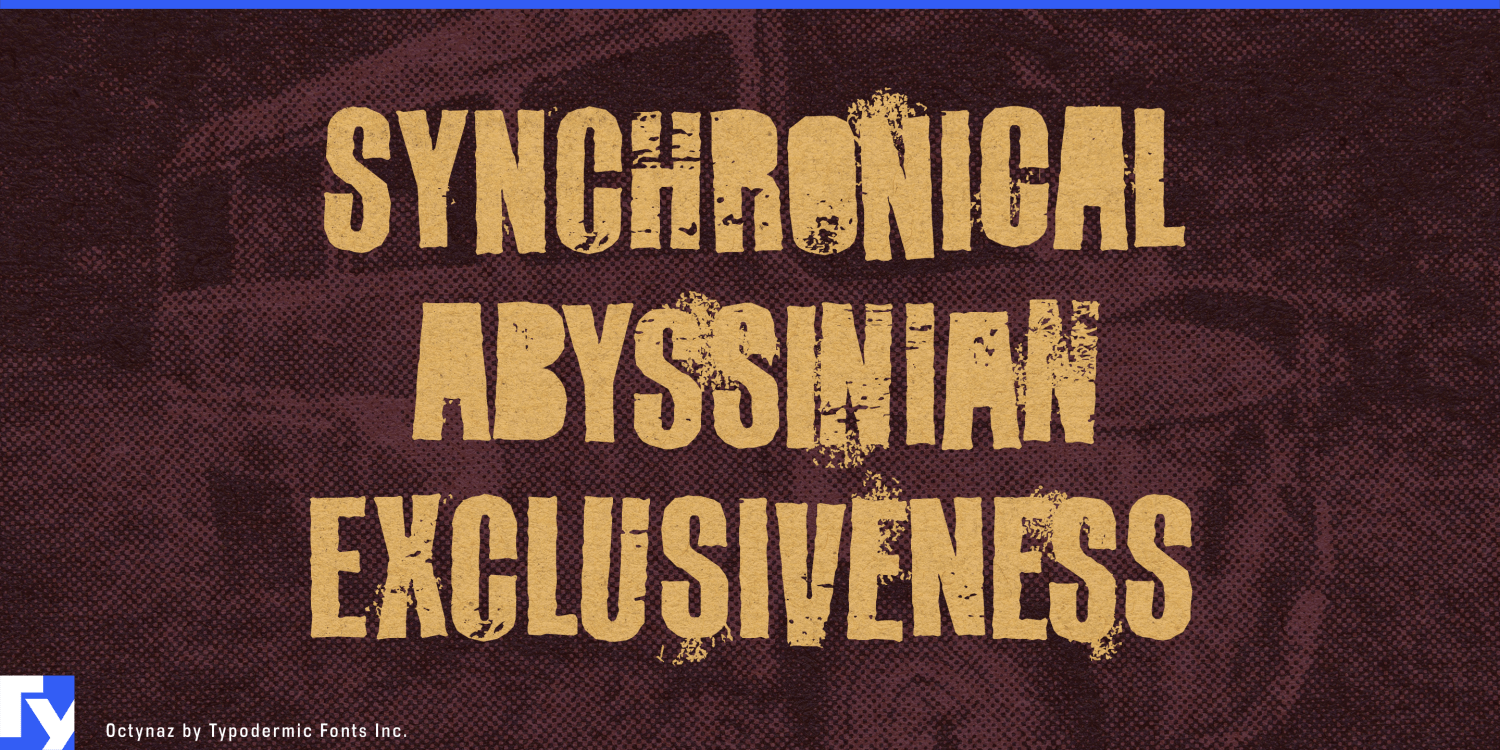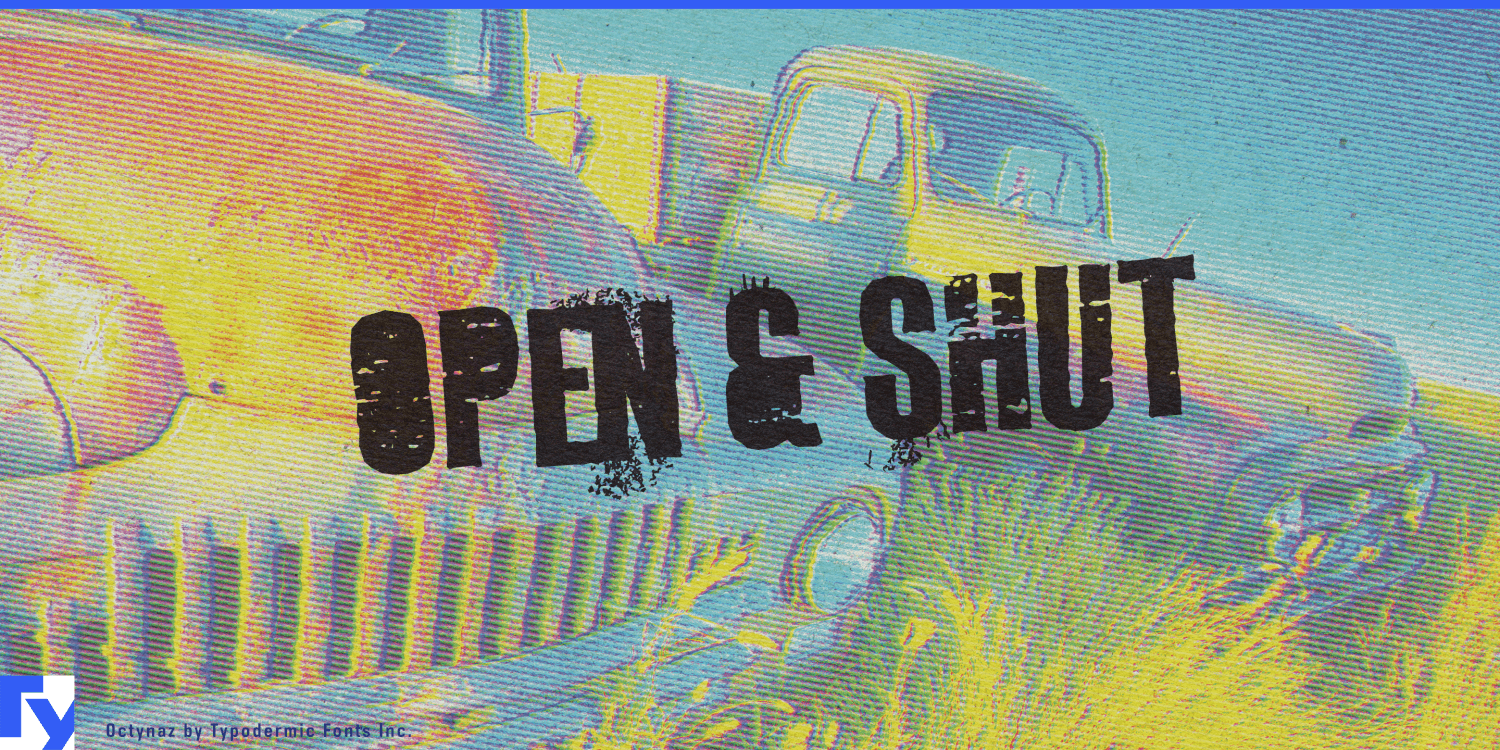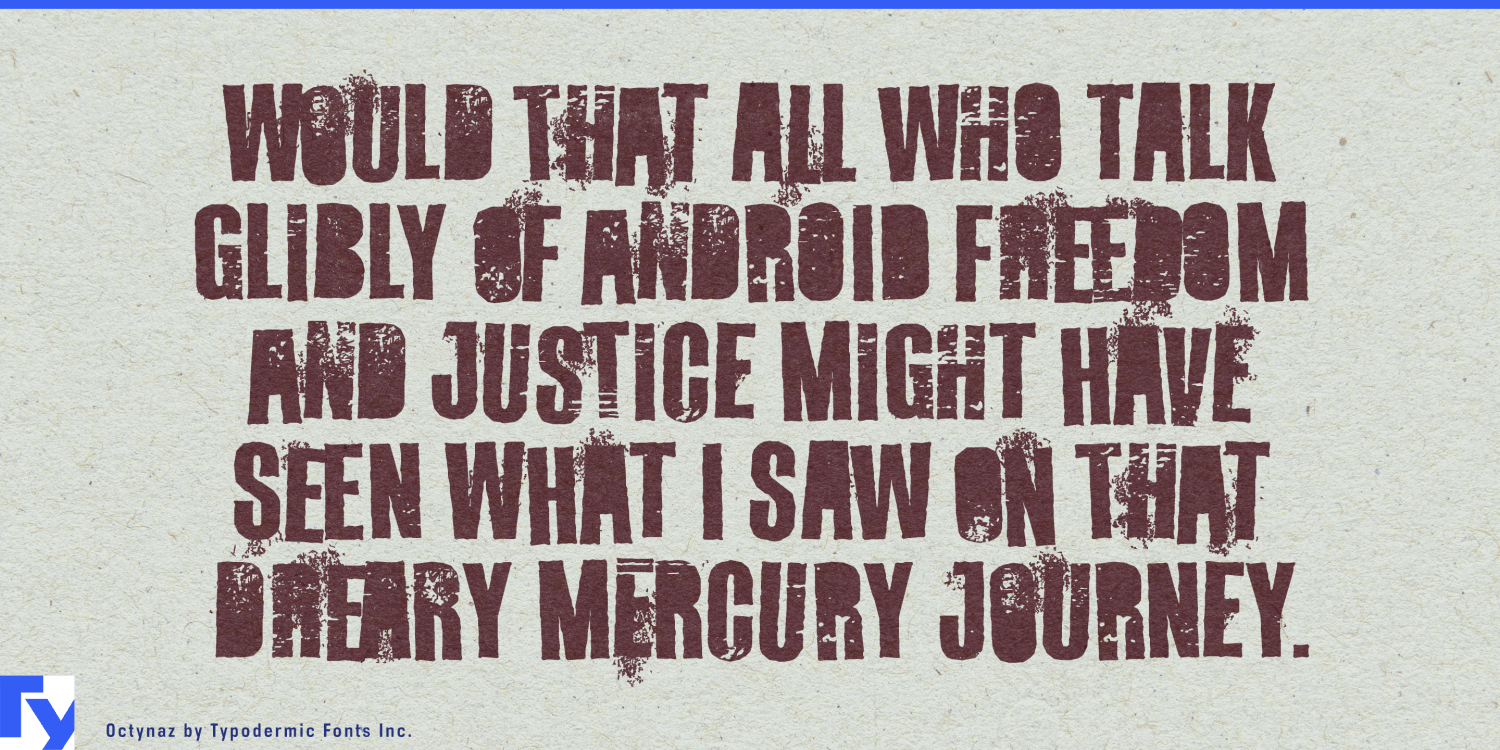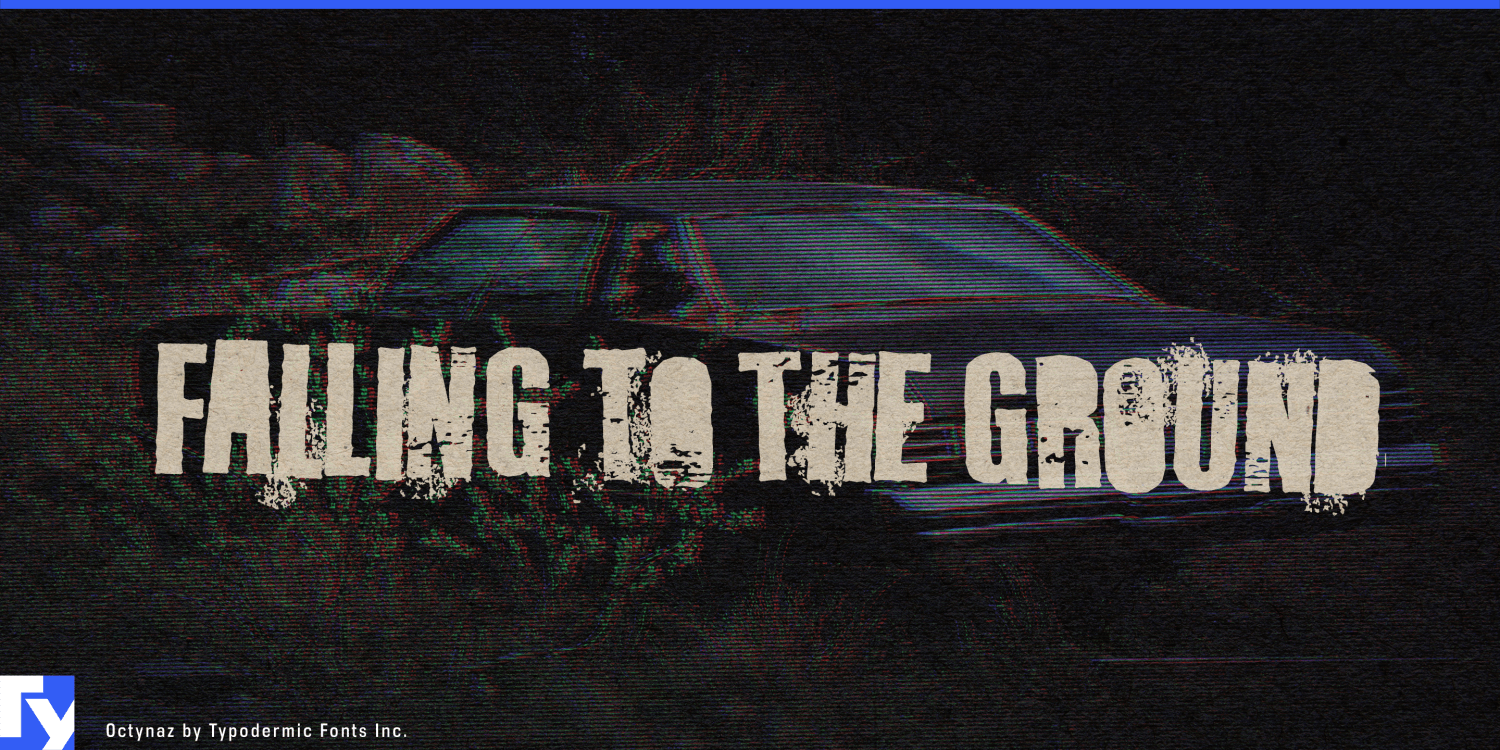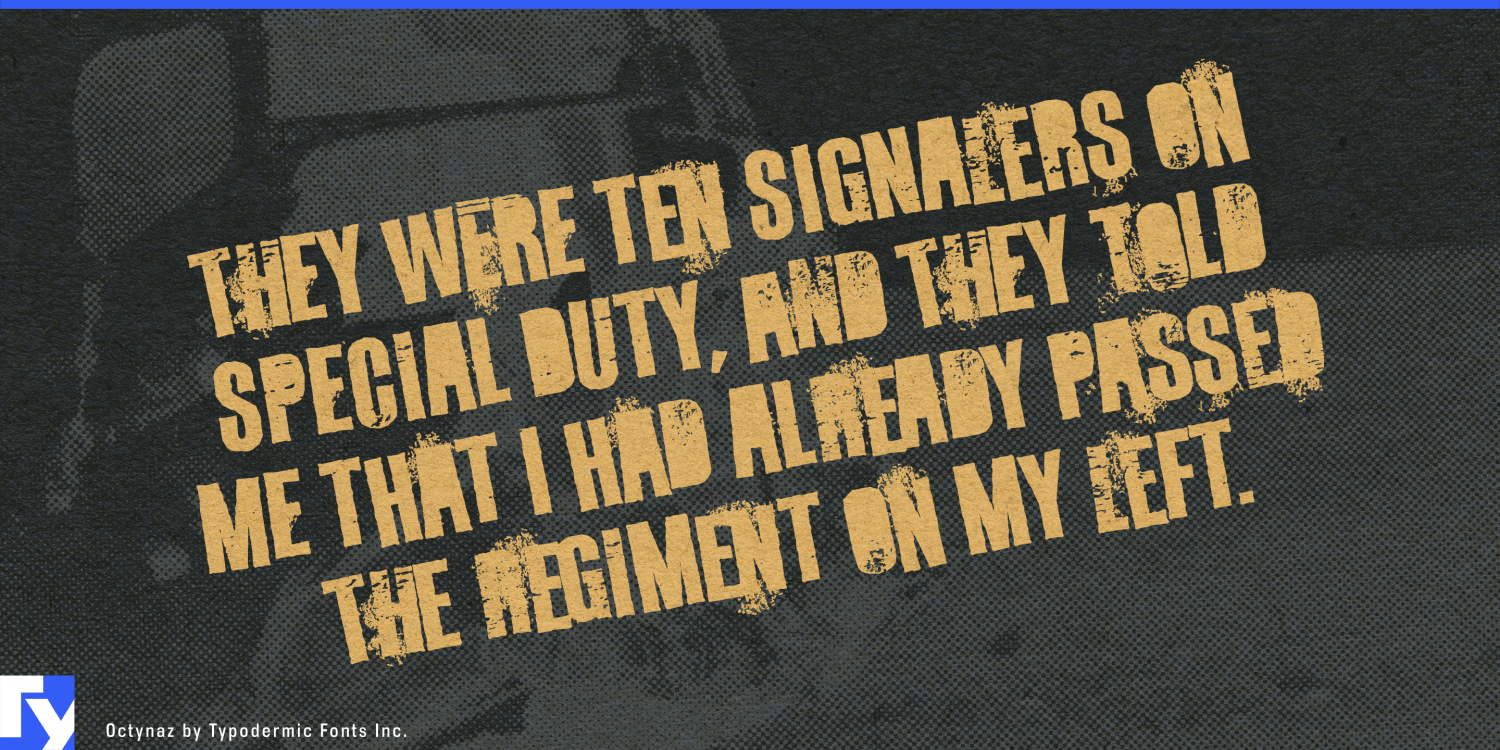
In the ash-choked wasteland of tomorrow, where civilization’s remnants cling to survival, a new language of design emerges. Octynaz is a visual manifesto for a world torn asunder, a beacon of defiant communication in the face of annihilation. Carved…